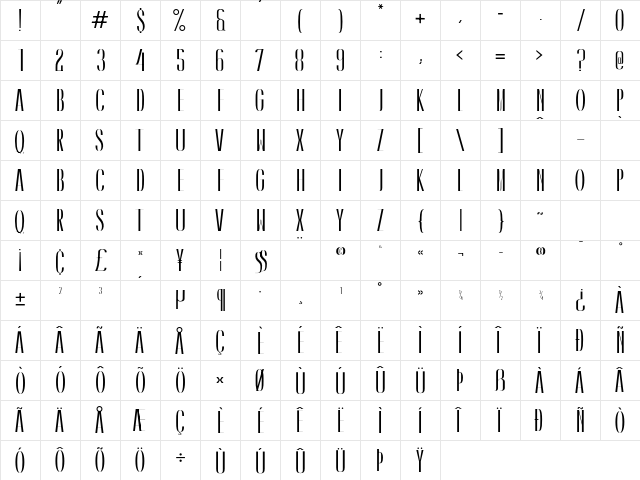
Caledo Bold
Design Context for Caledo Typeface
Caledo is a composed and adaptable typeface that performs quietly and consistently across a wide range of design contexts. Its bold stroke weight gives it real presence on the page.